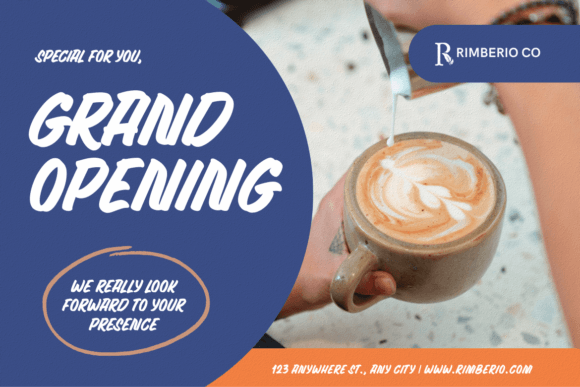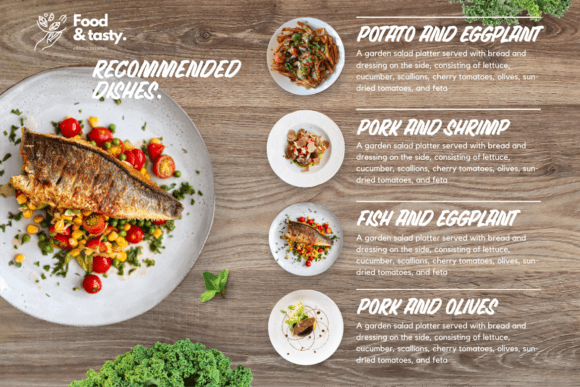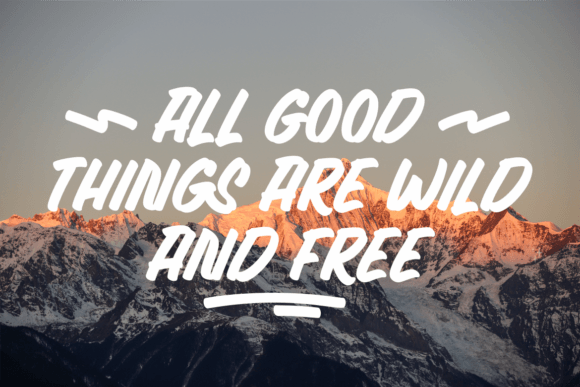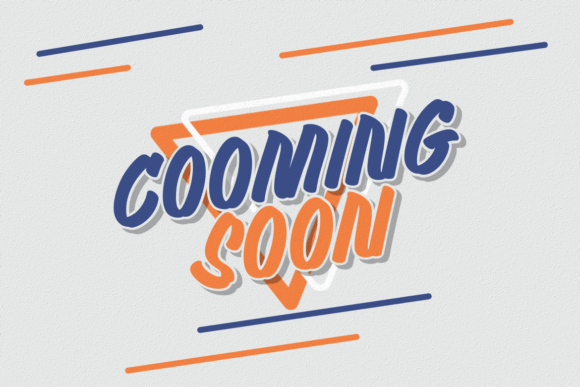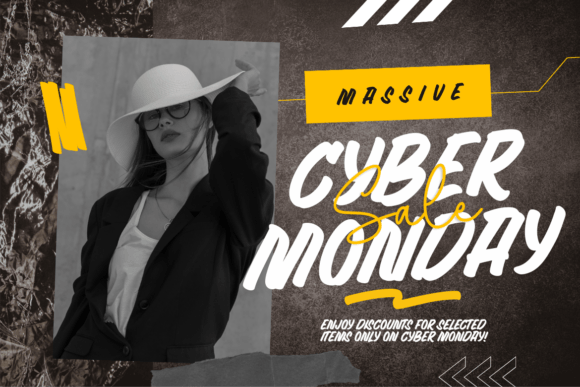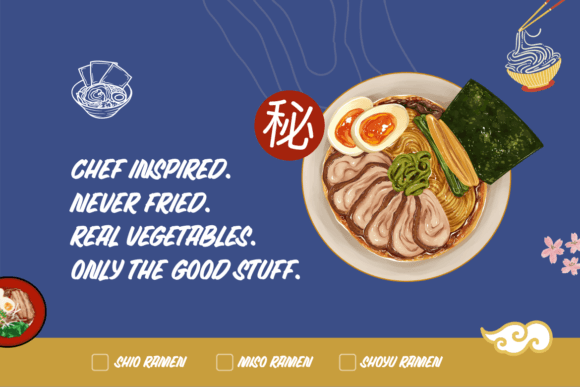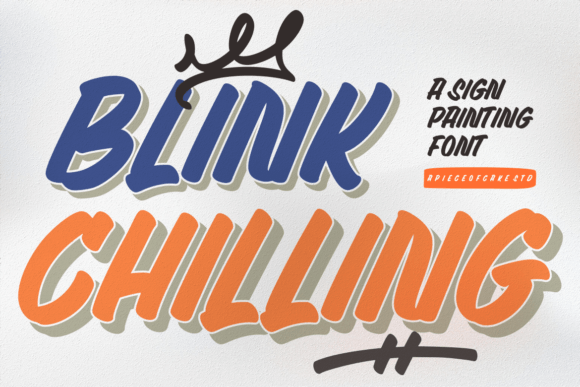
Introducing Blink Chilling Font: Elevate Your Designs with a Playful and Exquisite Touch
In the realm of digital design, fonts play a pivotal role in conveying messages, evoking emotions, and creating lasting impressions. Among the myriad of fonts available, the Blink Chilling Font stands out as a versatile and stylish display sign painting font. Perfect for a wide spectrum of applications, Blink Chilling is designed to add a playful and exquisite feel to any creative project. Whether you’re a designer, a craftsperson, or a digital artist, this font is poised to become your go-to choice for logos, branding, social media content, headlines, and much more.
What Makes Blink Chilling Font So Special?
Blink Chilling Font is not just another addition to the vast collection of digital fonts; it’s a game-changer. Its unique blend of playfulness and sophistication makes it an ideal choice for projects that demand a bit of flair. Here are some features that set Blink Chilling apart:
- Versatility: Blink Chilling is incredibly versatile. It can be used in a variety of contexts, from professional branding to casual social media posts. Its adaptability makes it a valuable asset for any designer or craftsperson.
- Stylish Display: As a display sign painting font, Blink Chilling is designed to catch the eye. Its stylish appearance is perfect for headlines, titles, and any text that needs to stand out.
- Playful and Exquisite Feel: The font adds a playful yet refined touch to any design. It’s perfect for projects that require a bit of whimsy without compromising on elegance.
Applications of Blink Chilling Font
The applications of Blink Chilling Font are vast and varied. Here are some of the most popular uses:
- Logos and Branding: Create a memorable logo or enhance your brand’s typography with Blink Chilling. Its unique style will help your brand stand out in a crowded marketplace.
- Social Media: Elevate your social media content with Blink Chilling. Use it for post titles, captions, or even as a part of your profile to add a personal touch.
- Headlines and Titles: Whether you’re working on a website, a magazine, or a digital newsletter, Blink Chilling is perfect for headlines and titles. It grabs attention and adds a touch of sophistication.
- Crafting and DIY Projects: For crafters and DIY enthusiasts, Blink Chilling can add a professional and stylish touch to project titles, signage, and promotional materials.
Blink Chilling Font is a stylish, versatile, and playful display sign painting font that is set to revolutionize the way you approach your designs. Whether you’re a professional designer, a craftsperson, or simply someone who loves to dabble in digital art, Blink Chilling is an invaluable addition to your toolkit. Its wide range of applications, from logos and branding to social media and crafting projects, makes it a font that can truly do it all. So why wait? Download Blink Chilling Font today and discover a new world of creative possibilities.